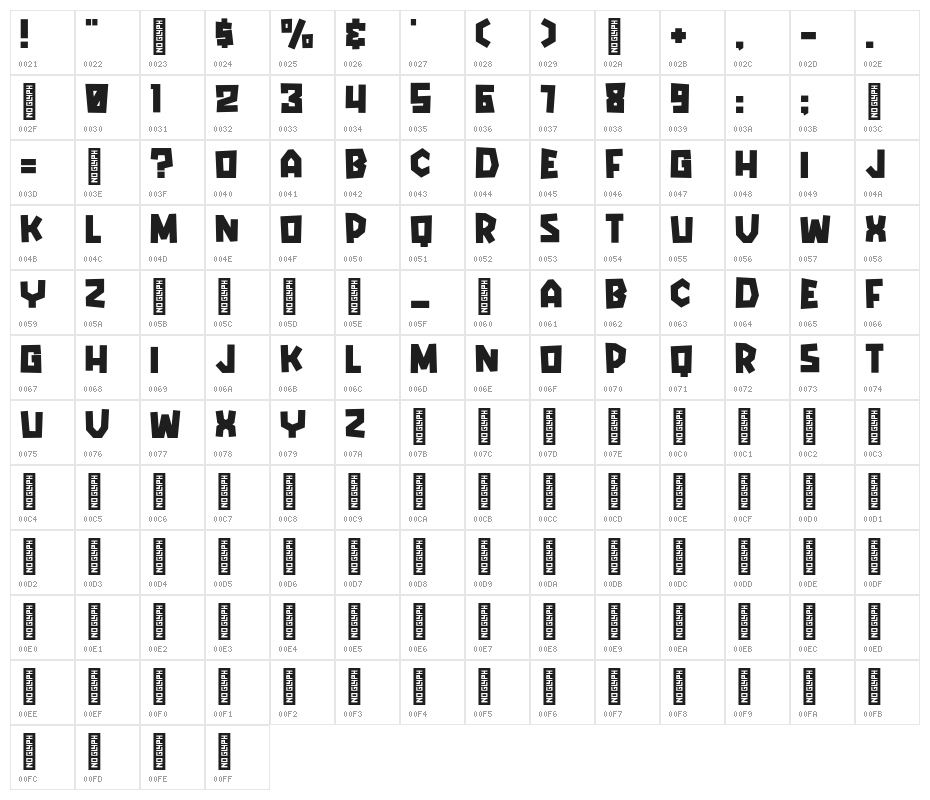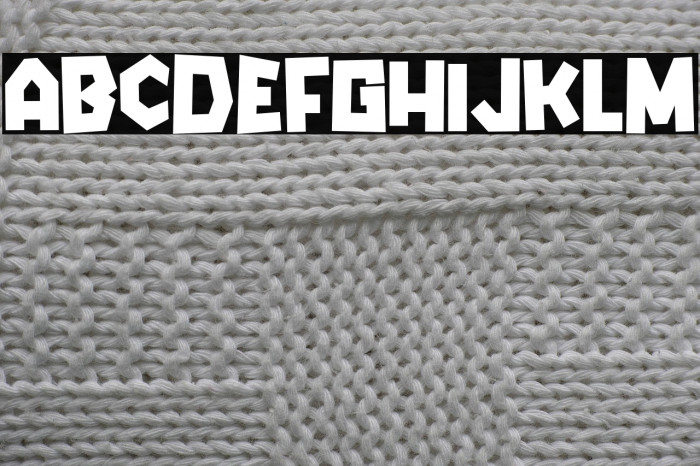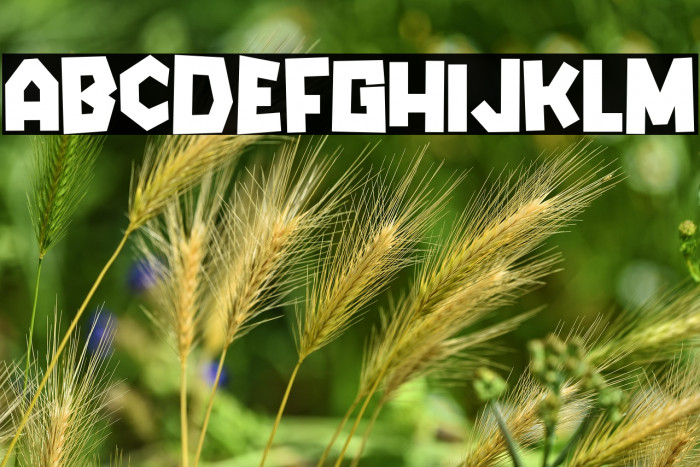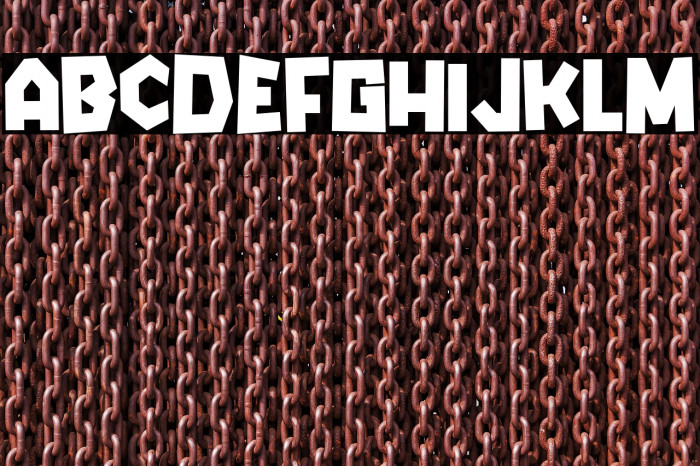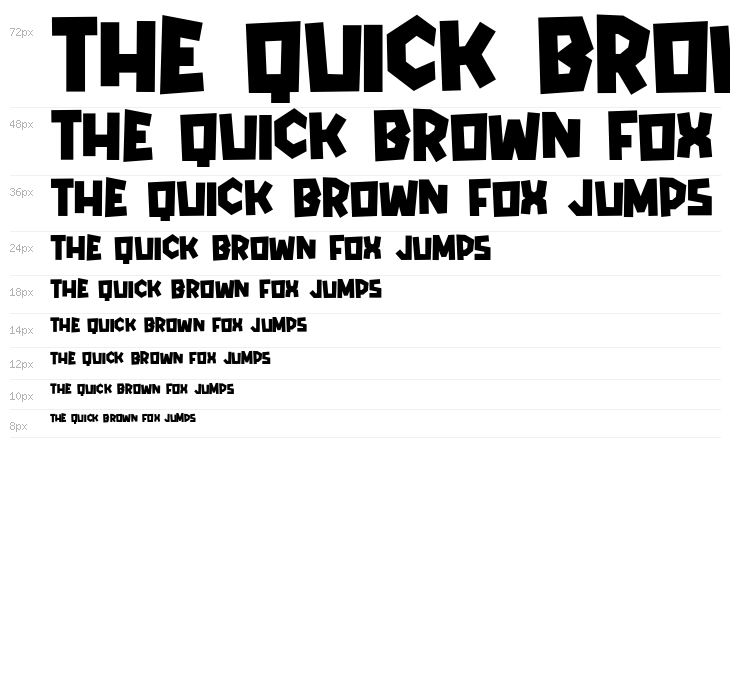
Mango Days Font
Mango Days Description
This font features a bold, geometric style with a playful and quirky character. The letters are blocky and angular, giving them a strong presence on the page. Each character is uniquely shaped, with varying angles and widths, creating a dynamic and energetic appearance. The font is highly legible, making it suitable for eye-catching designs. Its boldness and distinctiveness make it ideal for projects that require a strong visual impact. The numbers and special characters maintain the same bold and angular style, ensuring consistency across all text elements.
| Proposed Projects | Ideal for posters, headlines, branding, and any project needing a bold, eye-catching typeface. |